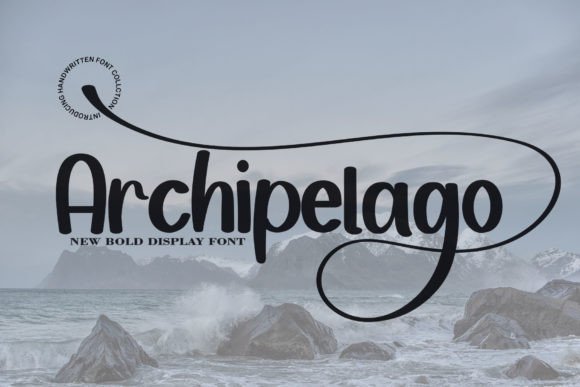
Discover the Perfect Blend of Classic Elegance and Modern Flair
There’s something magical about the moment when a design idea comes together – the thrill of seeing your vision take shape, the satisfaction of knowing you’ve created something beautiful. For designers, this moment is what drives us to push the boundaries of creativity and strive for perfection. And, in the world of typography, a great font can be the difference between a good design and a truly exceptional one.
Enter the Archipelago Font, a stunning handwritten font that combines the timeless charm of classic calligraphy with the contemporary vibe of modern design. With its impeccable form and elegant atmosphere, this font is the perfect addition to any design project seeking to convey sophistication and refinement. Whether you’re working on a branding campaign, a magazine spread, or a website, the Archipelago Font is a valuable asset that will elevate your design to new heights.
Archipelago Font Key Features
- Font Family: Archipelago Font comes in multiple font families, including Archipelago, Archipelago Script, and Archipelago Sans.
- Character Count: The font family includes over 1,000 glyphs, covering a wide range of languages and characters.
- Unique Characteristics: Archipelago Font features a unique blend of modern and classic elements, with subtle nuances in letterforms and a distinctive aesthetic.
- Size: The font family is available in a range of weights, from Light to Extra Bold, allowing for flexibility in design applications.
Archipelago Font Review
I’ve been working with the Archipelago Font for a while now, and I have to say it’s been a mixed bag. Here are my thoughts.
- ✨ Unique and distinctive style: The Archipelago Font has a distinct, exotic feel to it, which makes it perfect for projects that need a bit of flair.
- ✨ Versatile: This font is suitable for both print and digital projects, making it a great all-around choice.
- ✨ Well-behaved: The font is well-behaved, with even spacing and clear typography.
- ⚠️ Limited legibility: At smaller font sizes, the Archipelago Font can be a bit difficult to read, especially for those with visual impairments.
- ⚠️ Overuse: The font’s unique style can quickly become overwhelming if used too much in a project.
The Archipelago Font is a great choice for projects that need a bit of flair, but it’s not for every project. If you’re looking for a unique and versatile font, this might be the one for you. Just be mindful of its limitations and use it sparingly.
Use the Archipelago font in combination with other fonts to create a unique and visually appealing design.
Experiment with different font sizes, colors, and settings to find the perfect balance for your design.
The Archipelago font is ideal for use in:
1. Branding and logo design.
2. Print materials such as business cards and brochures.
3. Digital designs such as social media graphics and website headers.
Alternatives to Archipelago Font for Designers
Montserrat is a sans-serif font that is highly legible and versatile. It is suitable for body text, headings, and titles. Montserrat is a great alternative to Archipelago Font when you need a clean and modern look. It has a similar feel to Archipelago Font, but with a more geometric and minimalist design.
Lato is a modern sans-serif font that is highly customizable. It has a friendly and approachable feel, making it suitable for a wide range of design projects. Lato is a good alternative to Archipelago Font when you need a font that is both elegant and easy to read. It has a similar level of sophistication to Archipelago Font, but with a more relaxed and casual feel.